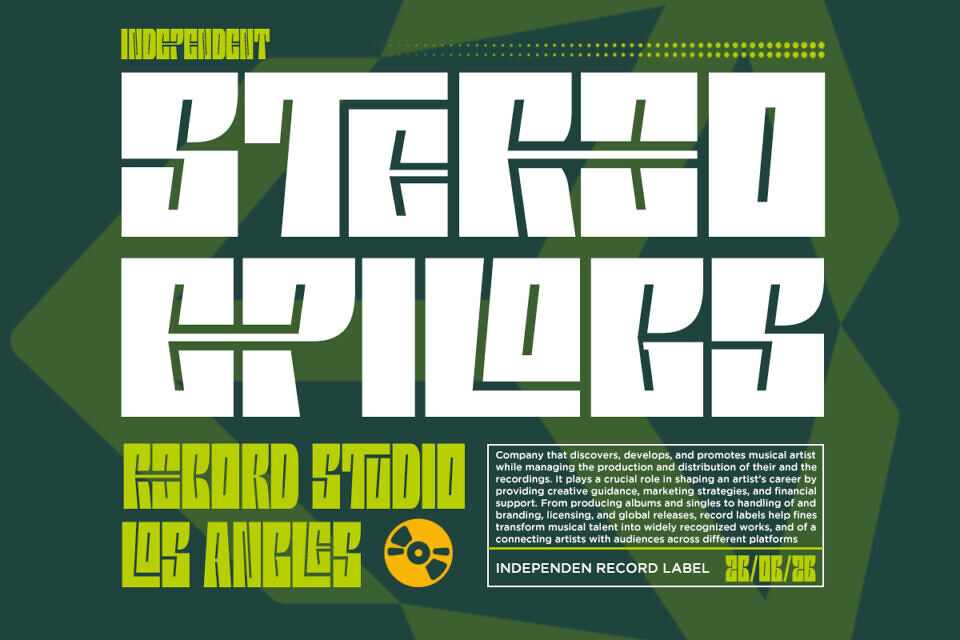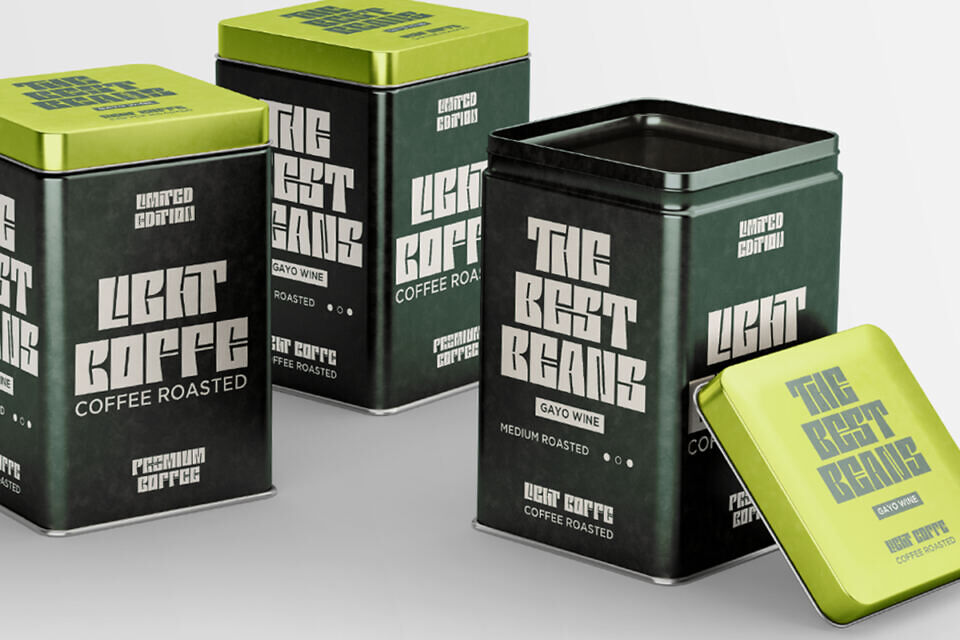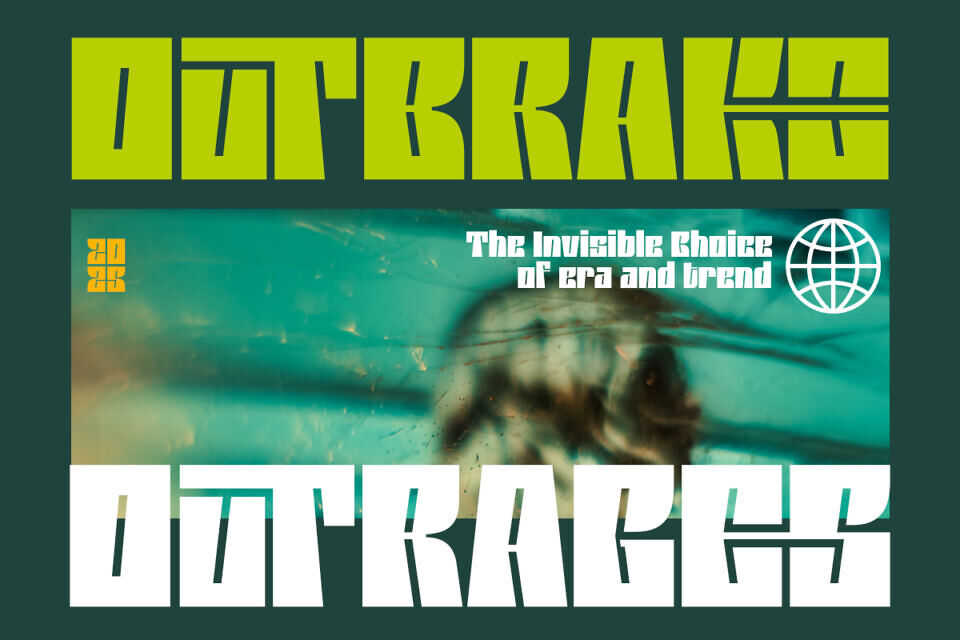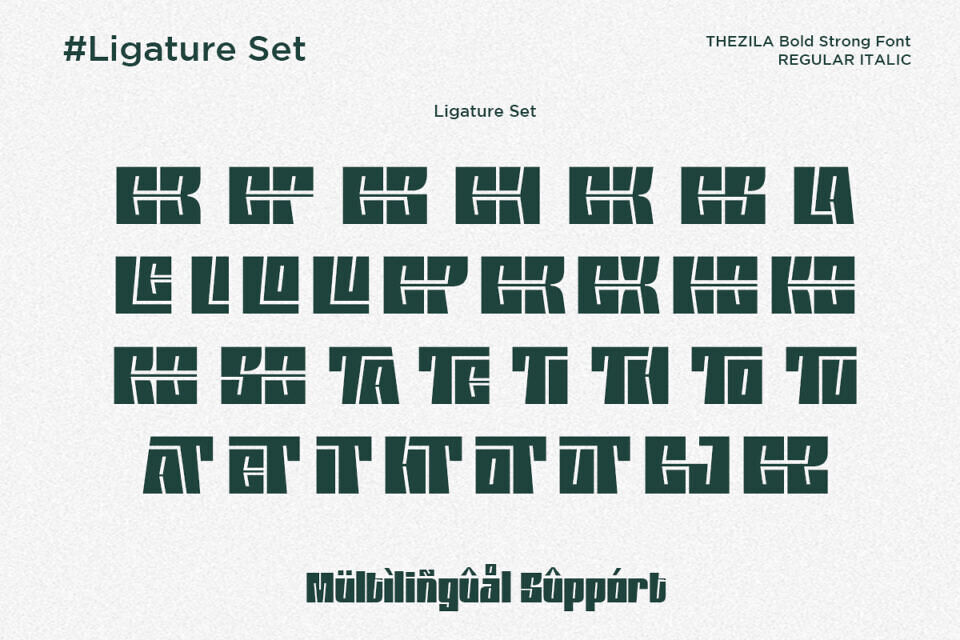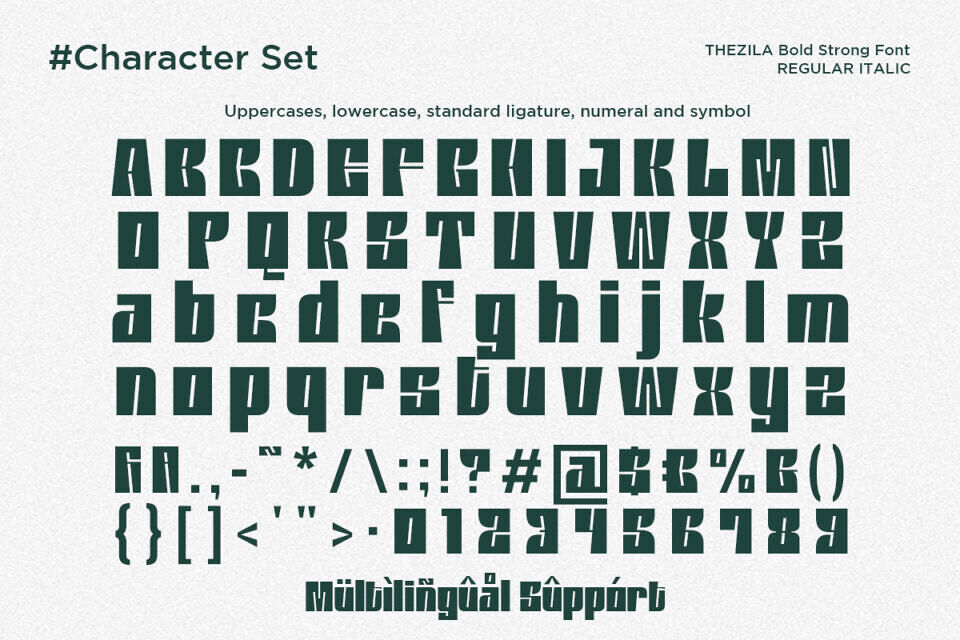
Thezila Font
Thezila is a bold strong display font designed to deliver maximum impact with a modern and futuristic edge. The italic version adds motion and energy, making it ideal for sports branding, gaming visuals, tech projects, and bold headlines. Every letter is engineered to maintain consistency while still offering a distinctive personality.
Whether you’re creating posters, logos, esports branding, or futuristic layouts, Thezila provides a strong and modern aesthetic. It’s the perfect choice for designers who want to push boundaries and create impactful, high-energy designs.